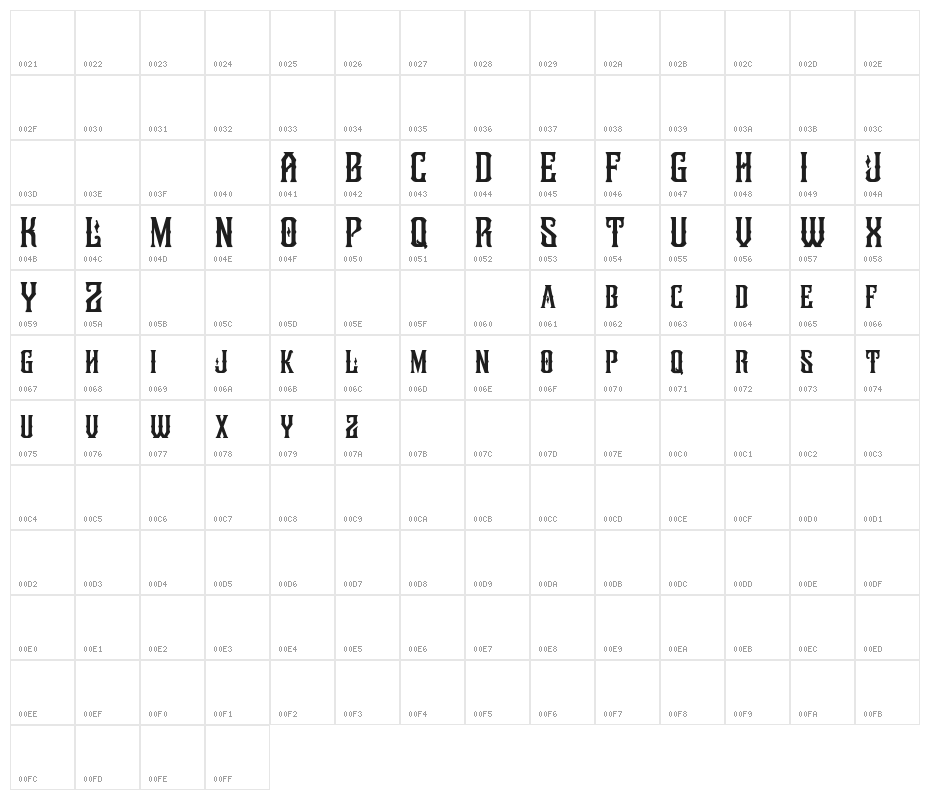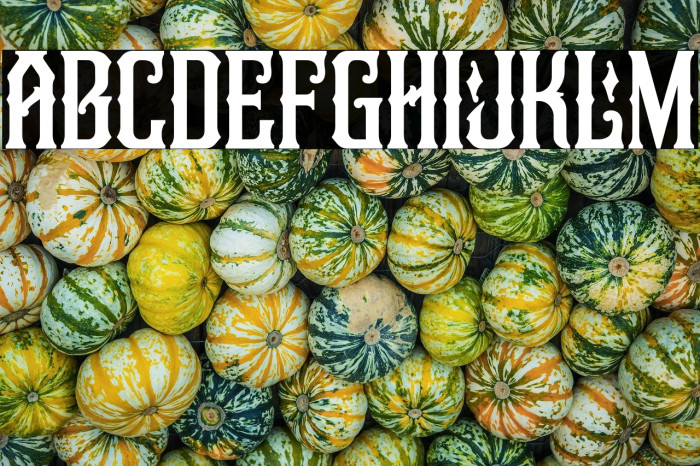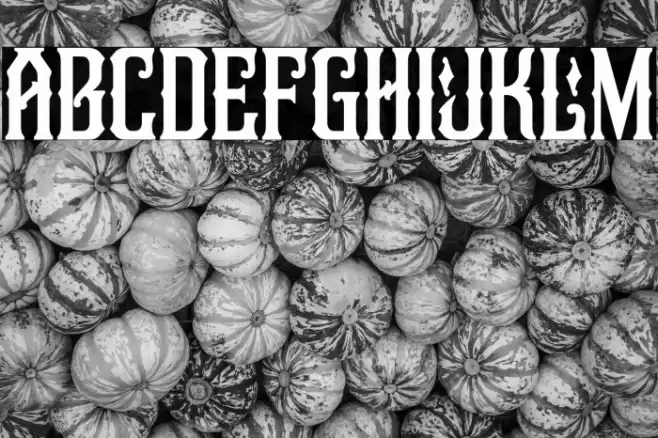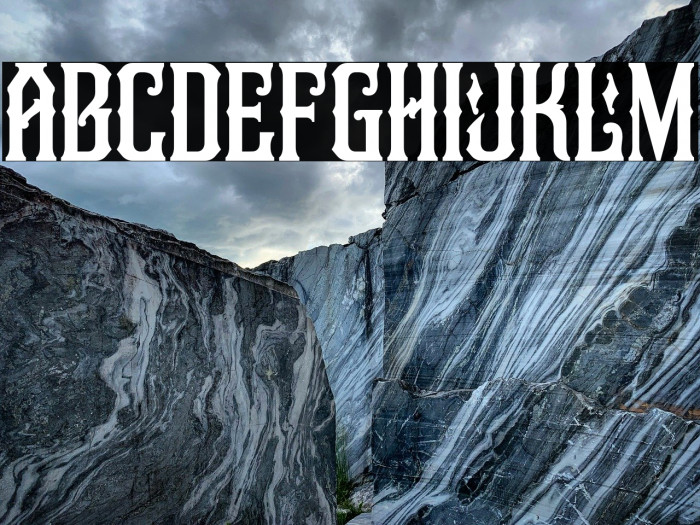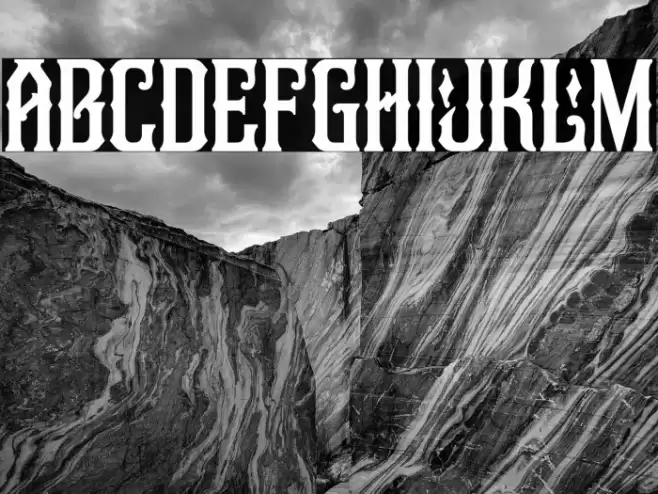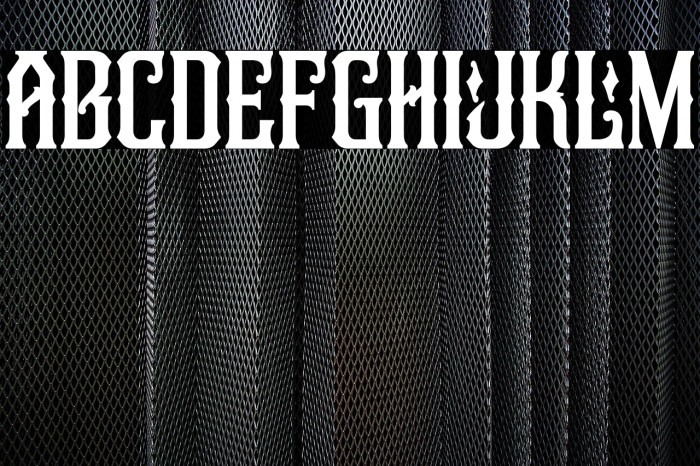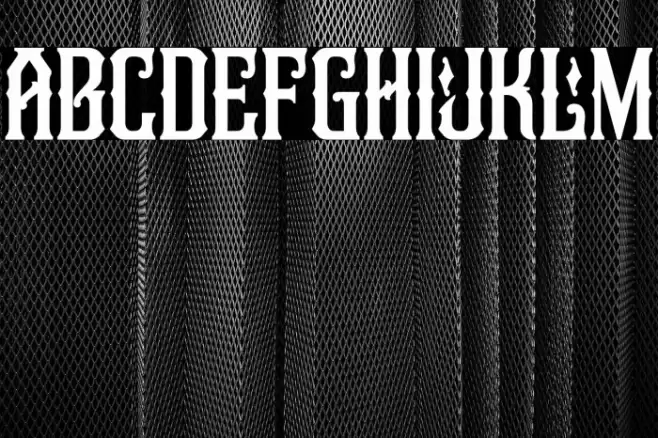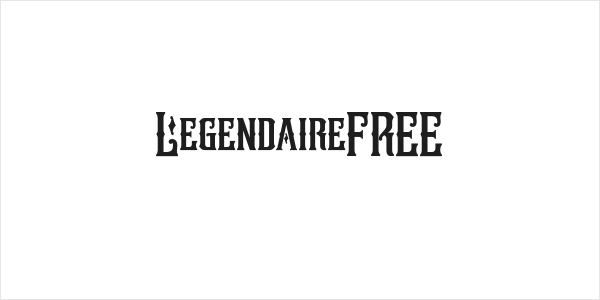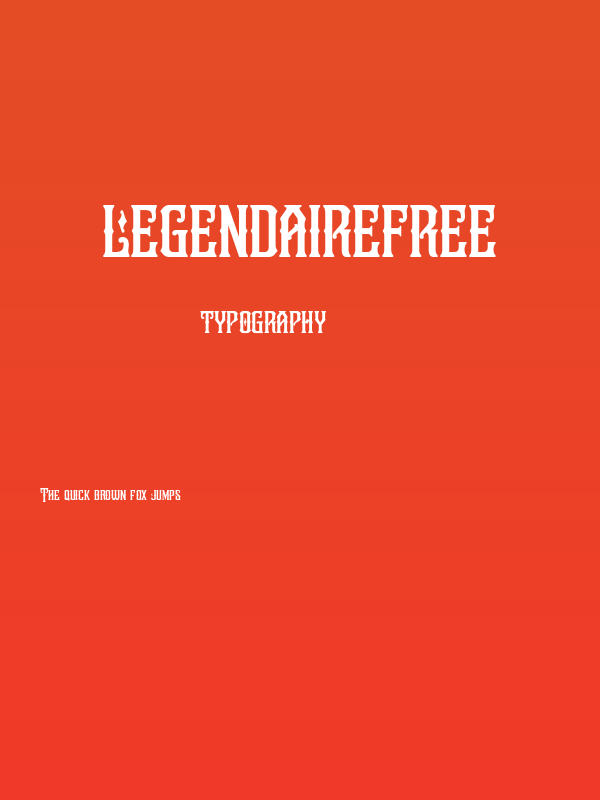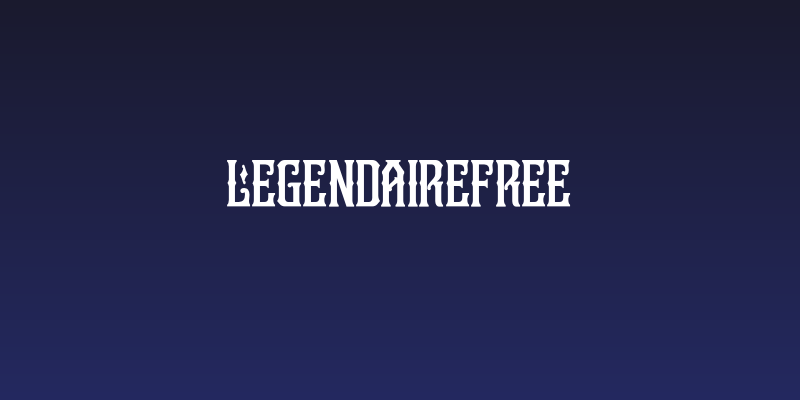
LegendaireFREE Font
LegendaireFREE Description
This font features a bold and striking design with a strong emphasis on angular and geometric shapes. The characters are intricately detailed, with sharp edges and unique cutouts that give it a distinct, ornamental appearance. The uppercase letters are particularly elaborate, showcasing a medieval or gothic influence that adds a sense of grandeur and drama. The font's overall aesthetic is both decorative and authoritative, making it suitable for projects that require a bold statement. The consistent weight and structure across the characters ensure readability while maintaining its decorative flair.
| Overall Style | Gothic, Decorative |
| Proposed Projects | Ideal for use in branding, posters, book covers, and any project seeking a dramatic and ornamental typeface. |